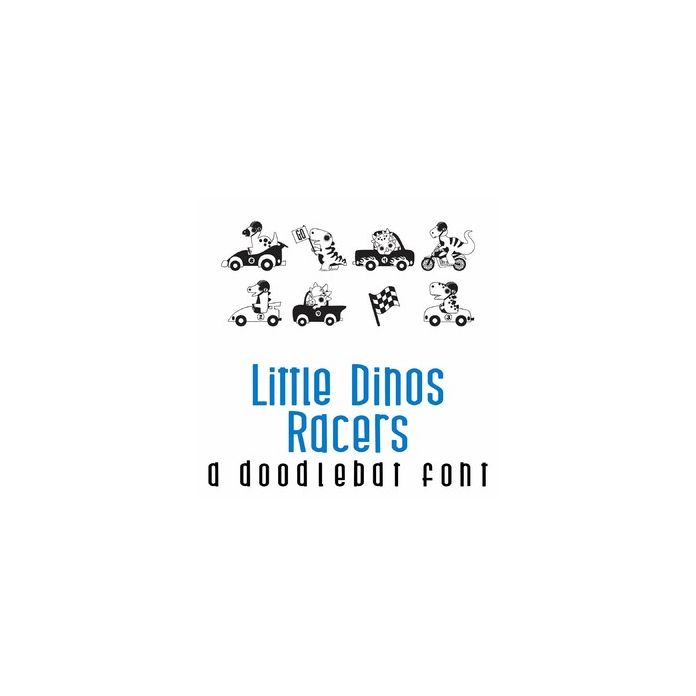
This adorable doodlebat font features 26 dinosaurs hitting the races. Perfect for cards, crafts, gifts, decor, parties, planner stickers, scrapbook pages, classrooms and more!